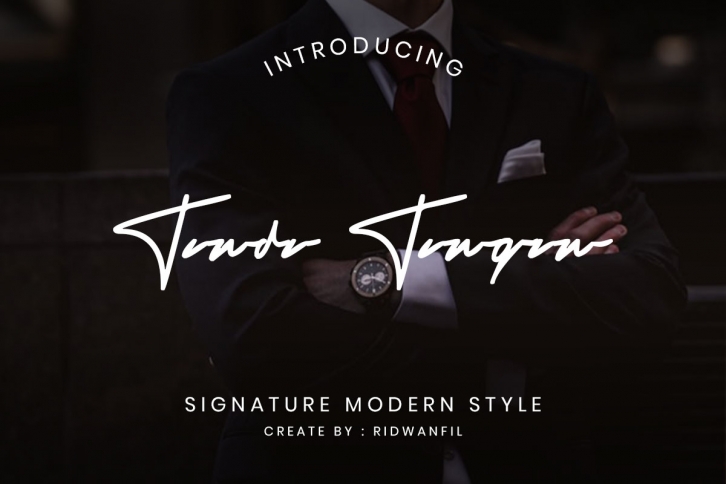
Tanda Tangan font - Signature Modern Style Download
Tanda Tangan is a beautiful font that was designed by Ridwanfil. It's a great choice for designers and creatives who need such a font. It was released on October 30, 2019 and the file size is 14.25 MB. Tanda Tangan may give a more youthful, expressive and casual look to your project. It is a very beautiful, refined, elegant, and high-quality font.